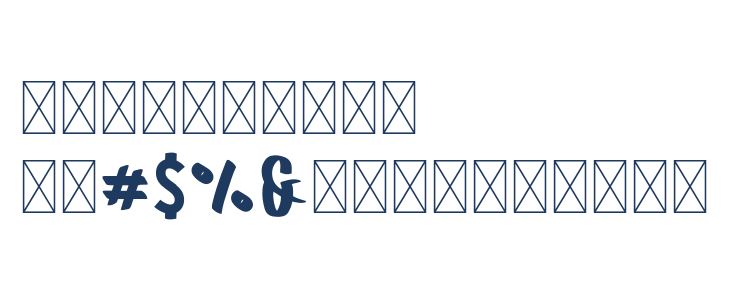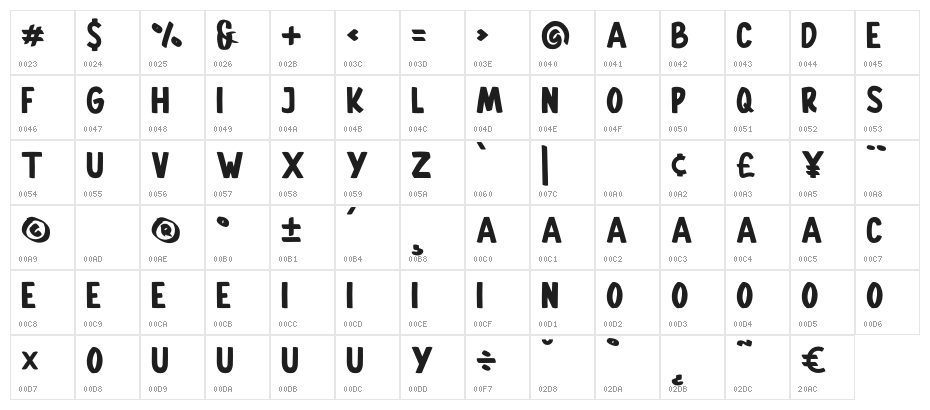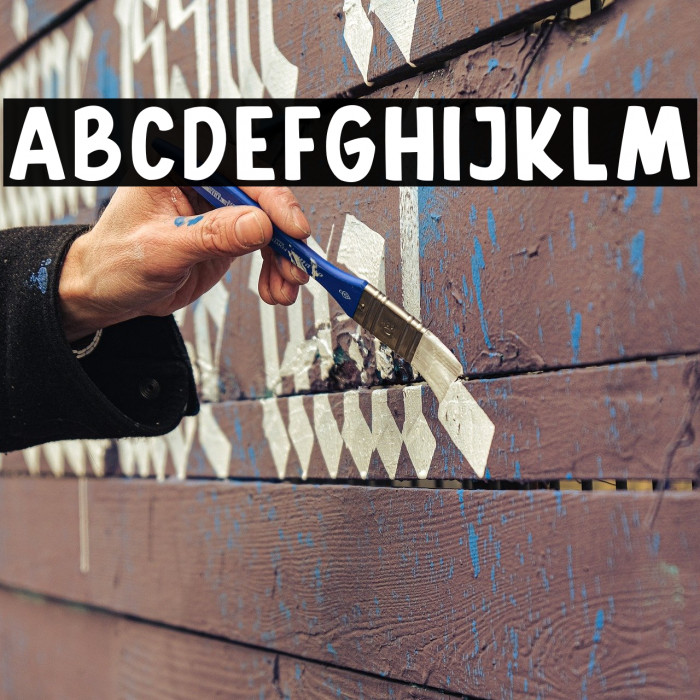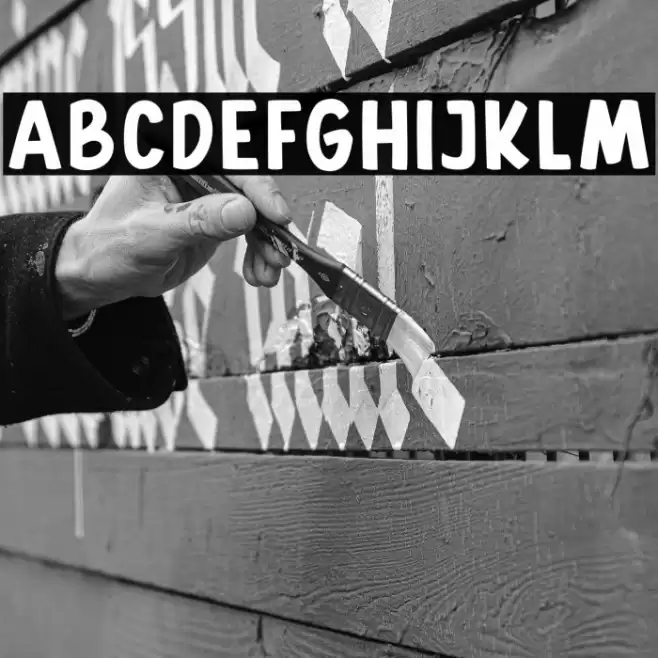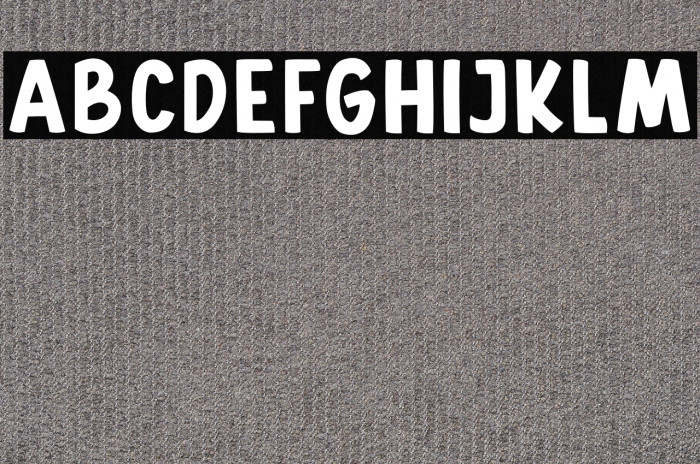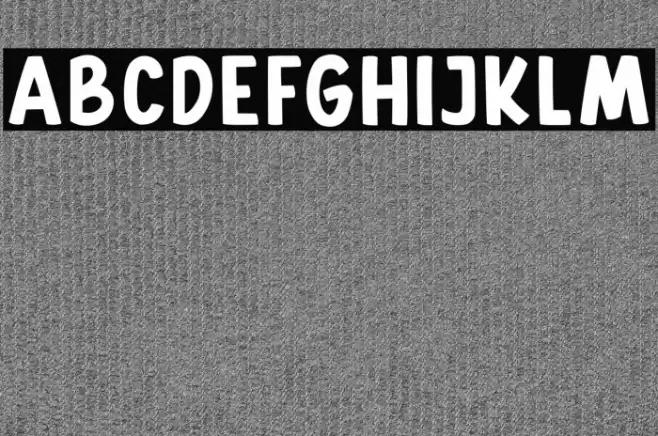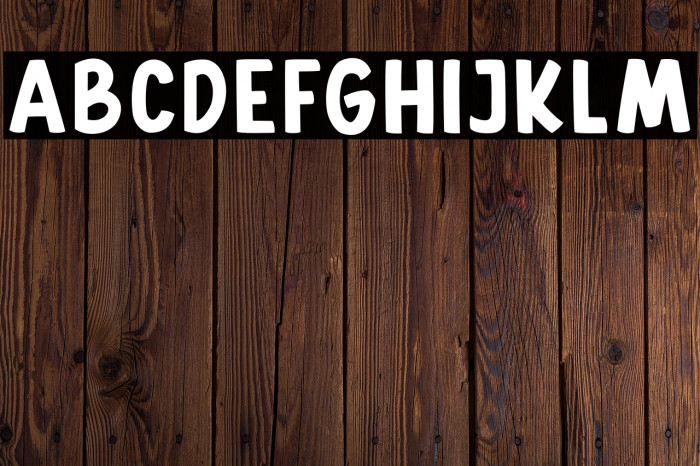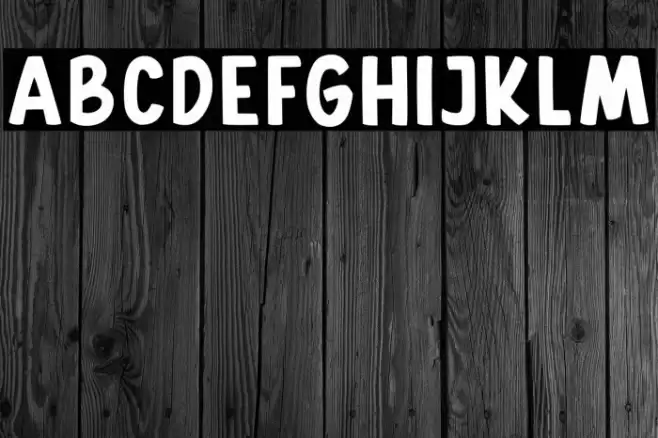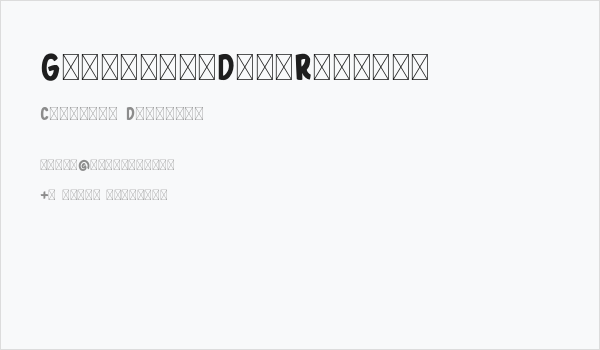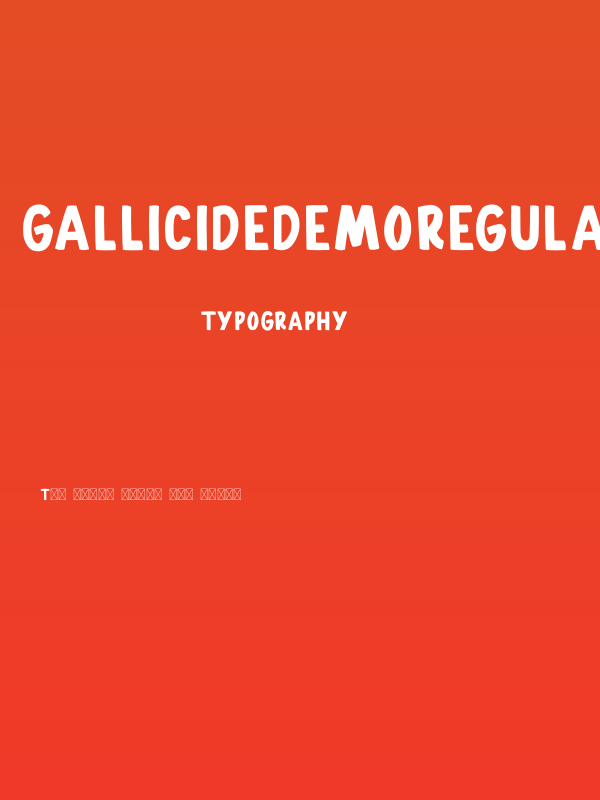
GallicideDemoRegular Font
GallicideDemoRegular Description
This font features bold, uppercase letters with a playful and slightly irregular style, giving it a hand-drawn appearance. The strokes are thick and consistent, creating a strong visual impact. The characters have a slightly condensed form, which enhances their boldness and makes them stand out. The font's unique style is characterized by its casual and informal feel, making it suitable for creative and fun projects. The special characters, such as the dollar sign, percentage, and ampersand, maintain the same bold and playful aesthetic, ensuring consistency across all elements.
| Overall Style | Playful, Casual |
| Proposed Projects | Ideal for children's books, posters, playful branding, and creative projects. |